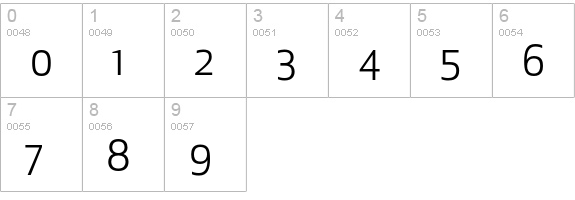
ApexNew-Book is a comfortable, highly readable variant in the ApexNew typeface family \xE2\x80\x94 well suited to long-form body text, articles, and editorial content.
Introducing ApexNew-Book, a beautifully crafted font that exudes elegance and sophistication. With its clean lines and modern design, this font is perfect for a wide range of design projects, from branding to print materials. The versatility of ApexNew-Book makes it a go-to choice for designers looking to make a statement. The best part? ApexNew-Book is available for free download at FontsMarket.com. This means you can add this stunning font to your collection without breaking the bank. Don't miss out on the opportunity to elevate your designs with the timeless appeal of ApexNew-Book. Download it today and let your creativity soar.